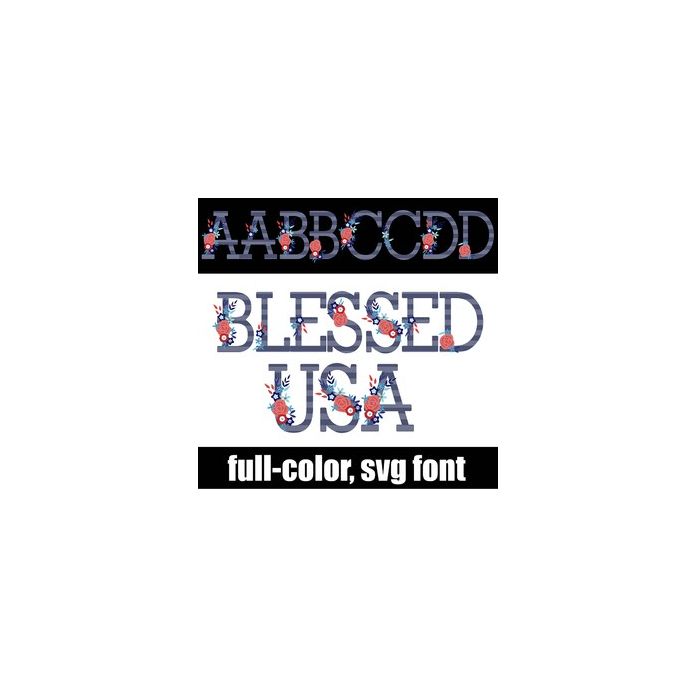
This full-color font features florals on striped lettering in a red, white, and blue color palette. There is an alt case w/ additional colors you can access through your system or Silhouette's glyph map.